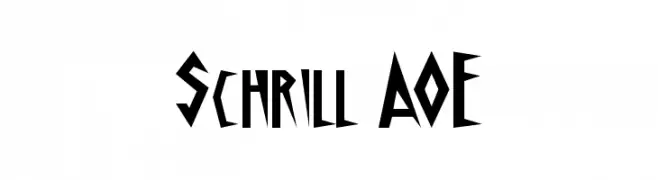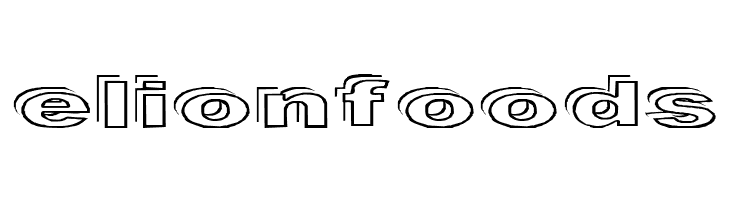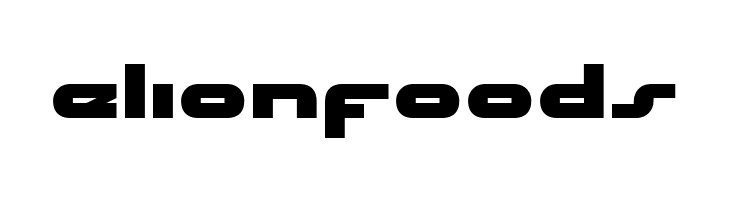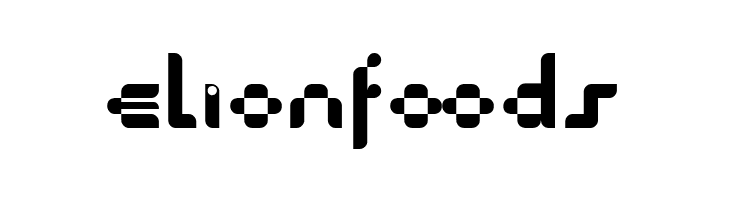
A bold, geometric font with a digital, arcade-inspired aesthetic.
A bold, geometric uppercase font with a modern and timeless design.
A bold, angular font with sharp geometric lines and dynamic style.
A bold, outlined font with a modern and geometric style.
A bold, geometric font with sharp angles and a futuristic style.
A bold, geometric font with a futuristic and tech-inspired design.
A futuristic, geometric font with bold, rounded shapes and a digital aesthetic.